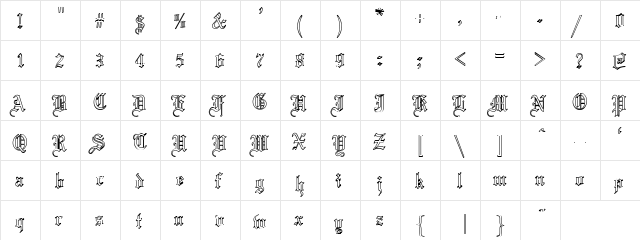
Mariage-Normal Outline Regular
Design Context for Mariage-Normal Outline Typeface
Mariage-Normal Outline brings ornamental detail and strong personality to headlines and identities, where visual impact matters more than quiet functionality.
Font Pairing: Pair with a clean neutral sans-serif for body copy to let Mariage-Normal Outline's character lead without overwhelming the composition.
Pro Tip: Treat Mariage-Normal Outline as the centrepiece of your typographic hierarchy. One strong heading set in a decorative face can carry an entire layout.